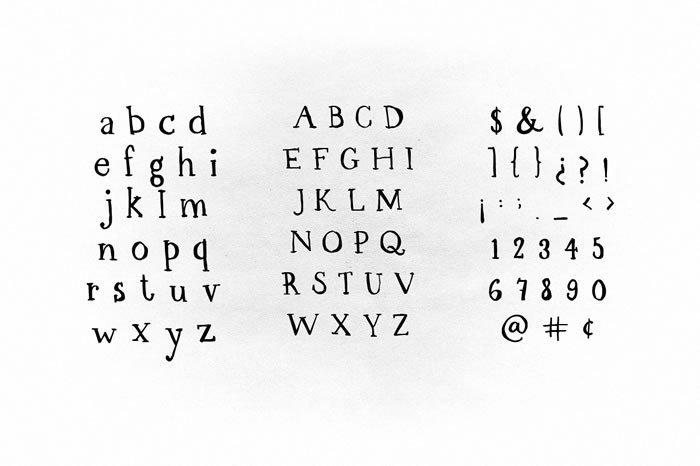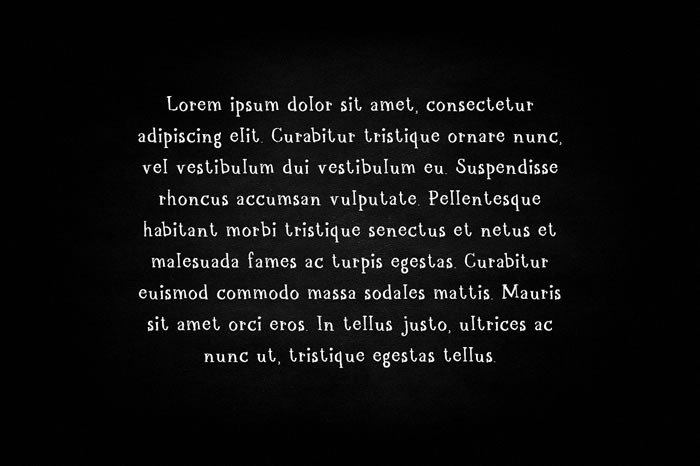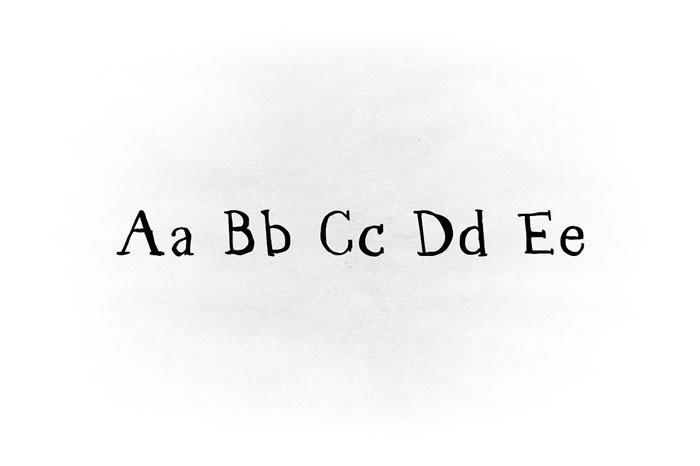
Introduction to Lorem Ipsum Font Font
Fonts play a crucial role in design, and the Lorem Ipsum Font font is a typeface that brings both character and versatility to any project. Whether you’re working on a branding project, a website, or a print design, the Lorem Ipsum Font font offers a unique style that can elevate your work.
Amazing serif font created with a pen brush on a paper canvas.
Lorem Serif is perfect to use for logo’s, invitations, posters, quotes, letterheads, birthdays and much more .
Key Features of Lorem Ipsum Font Font
Why Choose Lorem Ipsum Font Font?
The Lorem Ipsum Font font is more than just a typeface – it’s a design tool that helps you communicate your message with style and clarity. Its unique character set and versatile design make it suitable for a wide range of applications, from elegant invitations to bold headlines.
With its carefully crafted letterforms and balanced proportions, the Lorem Ipsum Font font ensures readability and visual appeal across all mediums.
What makes Lorem Ipsum Font font special?
The Lorem Ipsum Font font stands out with its unique design, exceptional readability, and versatility across various design applications.